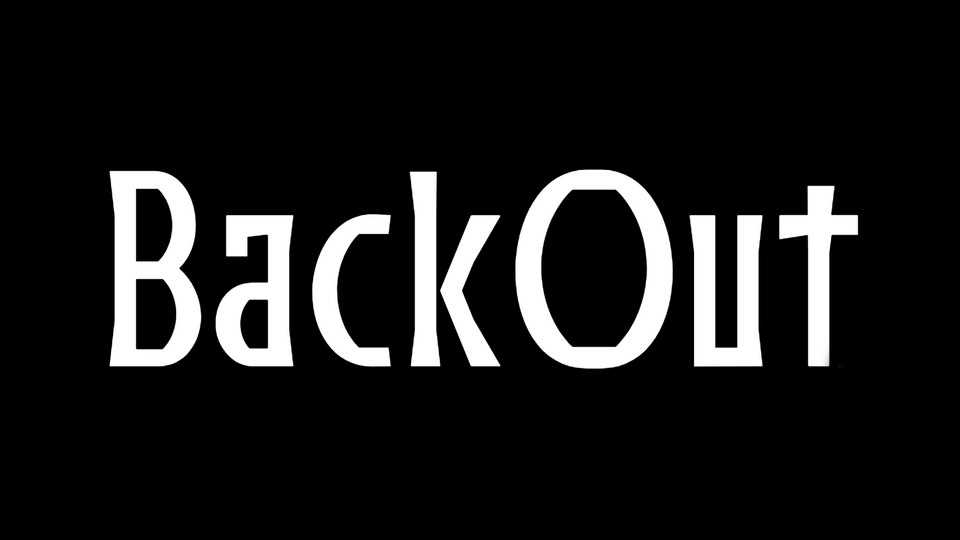
Download BackOut font, a display typeface, a kind of African Glyphic typeface. Its name refers to Bob Marley’s eponym song. BackOut font is perfect for unique design projects and branding.
Designer: Velvetyne TF